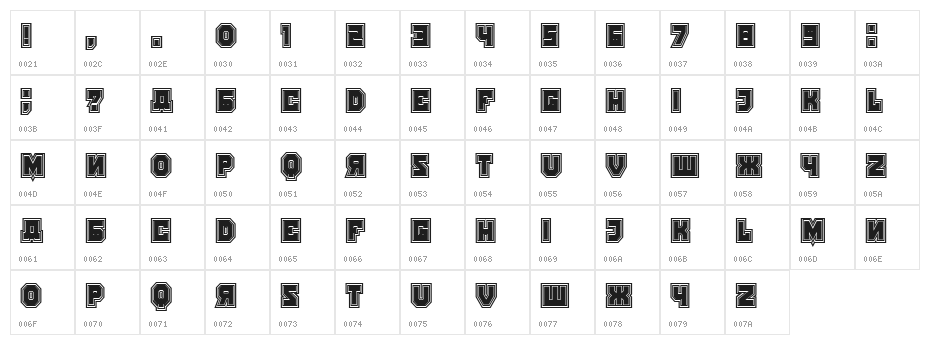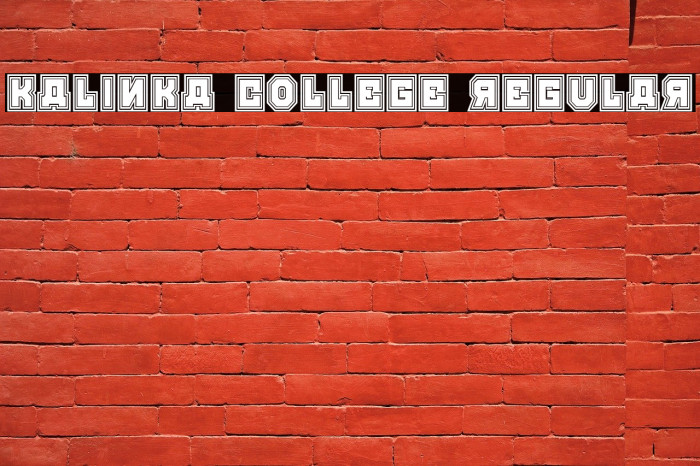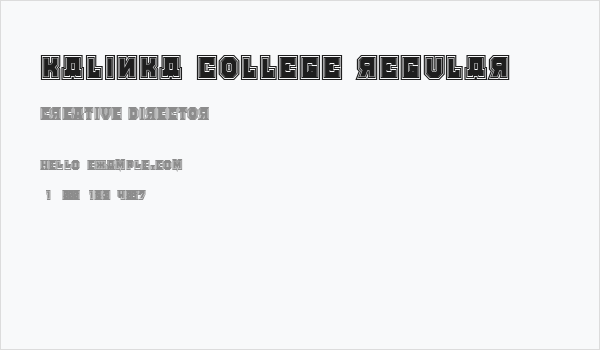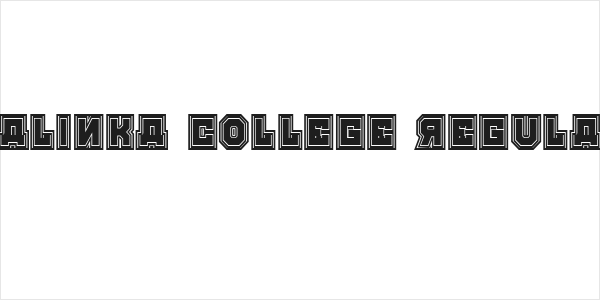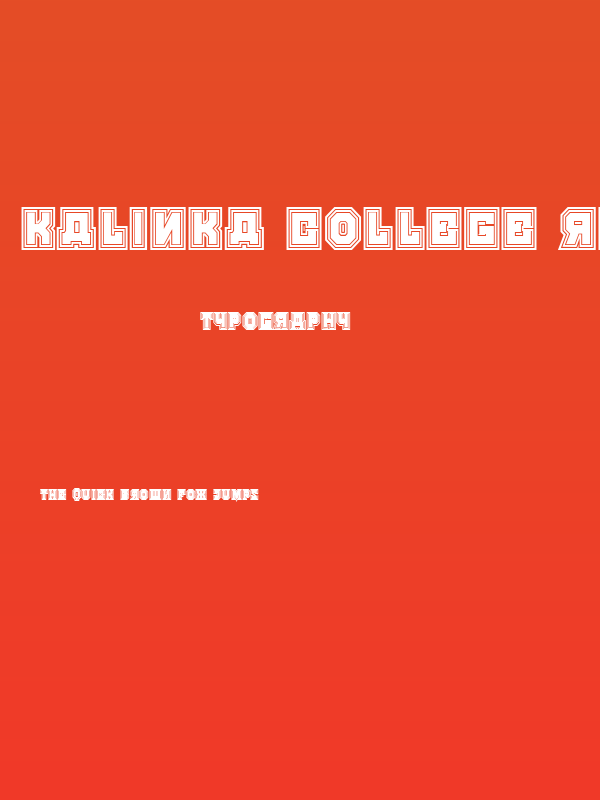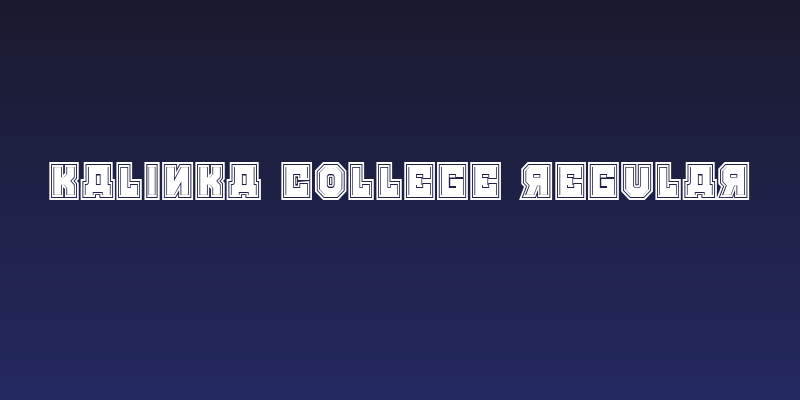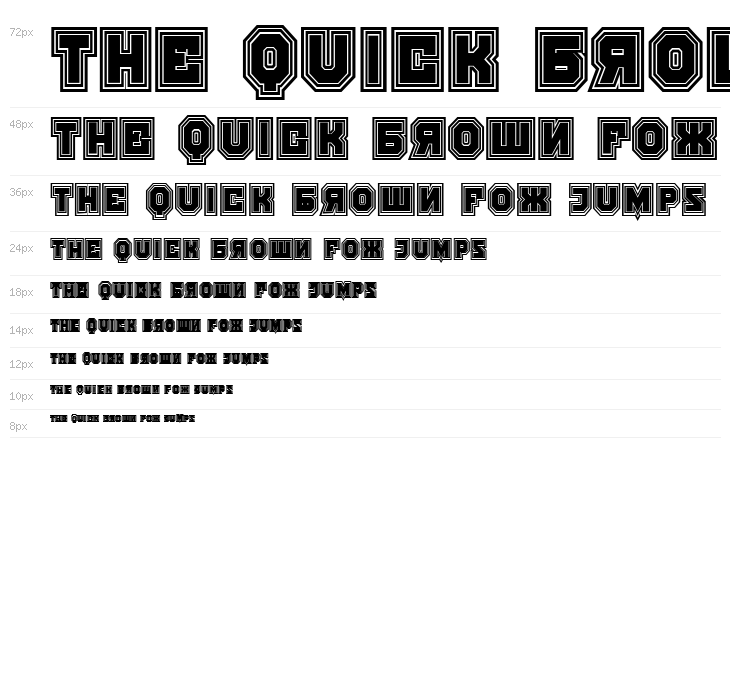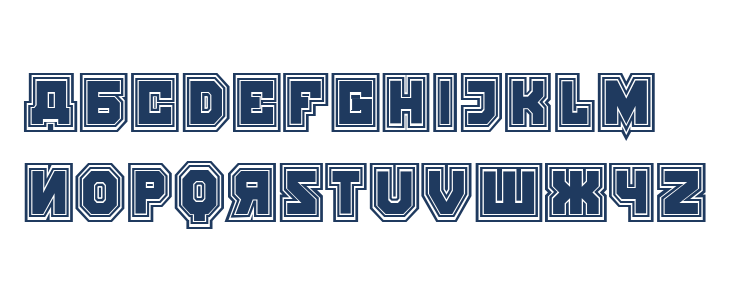
Kalinka College Regular Font
Kalinka College Regular Description
This font features a bold, geometric style with a strong emphasis on angular shapes and outlines. Each character is designed with a double-layered effect, creating a three-dimensional appearance. The uppercase letters are particularly striking, with sharp edges and a blocky form that conveys a sense of strength and stability. The numerals and special characters maintain this robust aesthetic, ensuring consistency across all glyphs. The font's unique design makes it stand out, suitable for projects that require a bold and impactful visual statement.
| Proposed Projects | Ideal for sports branding, poster headlines, video game titles, and any project needing a strong, impactful typeface. |